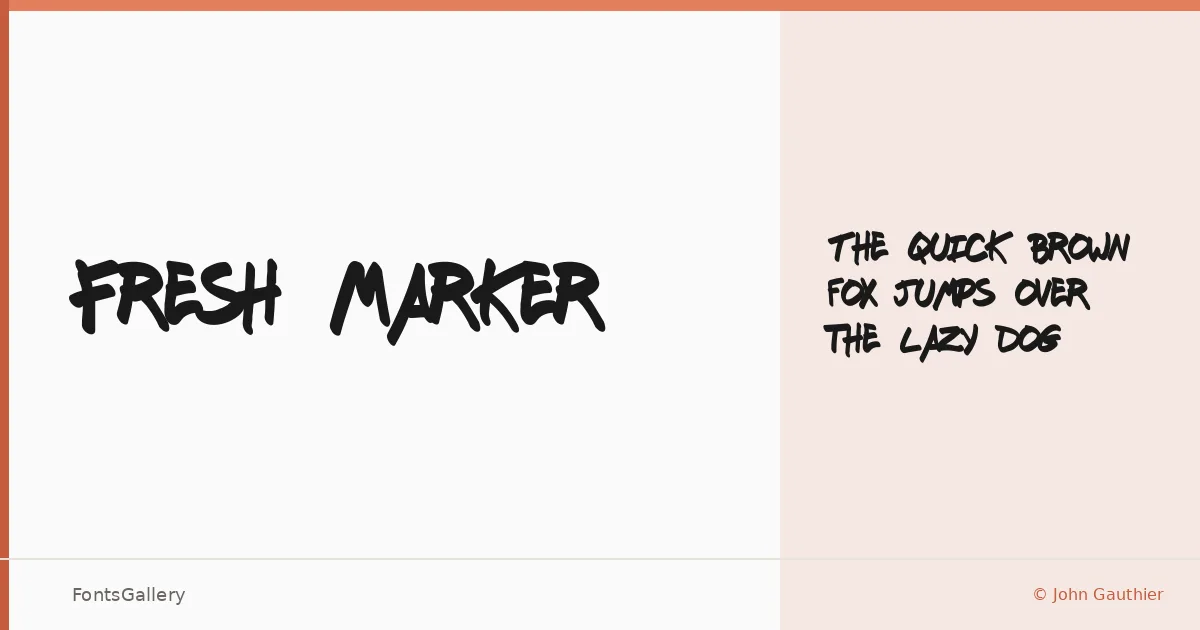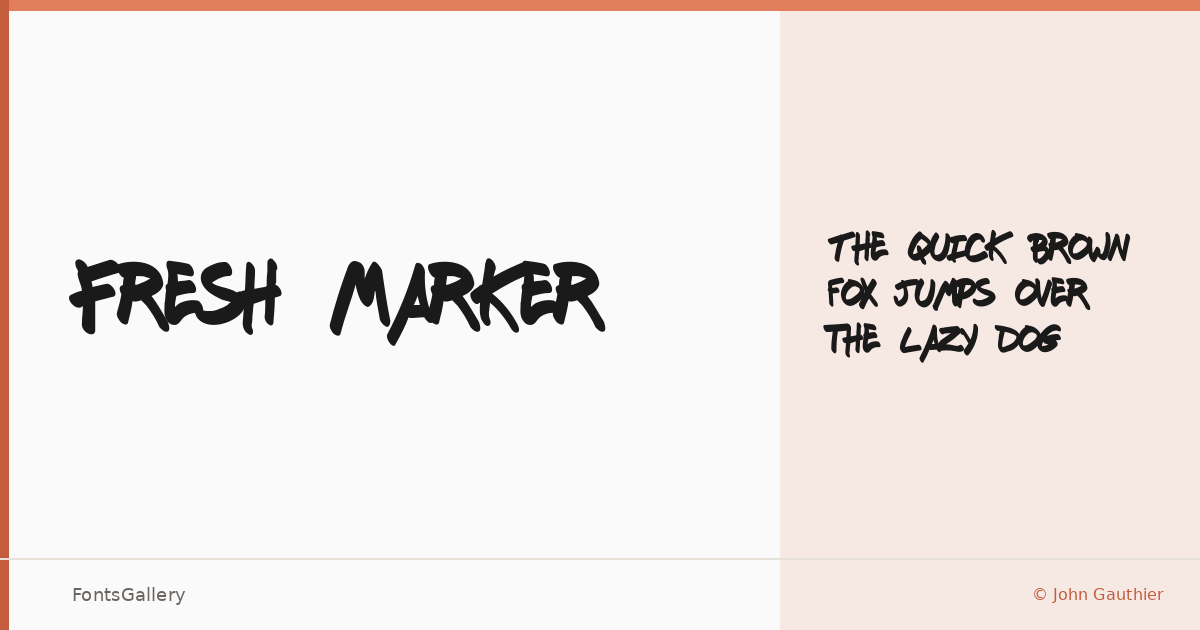
About Fresh Marker Font
There is something immediately physical about this face — the kind of thick, slightly ragged stroke you get when a broad-tipped marker meets rough paper and moves fast. It was designed by John Gauthier, and it carries that handmade energy without apologizing for it.
This is a single-weight handwritten display face — Regular only — built around a bold, grunge-inflected character that sits somewhere between playful and rustic. The strokes have the natural unevenness of real marker work: edges that are not quite clean, letterforms that feel drawn rather than constructed. That roughness is the point. It reads as confident and immediate, not casual or throwaway.
The weight and texture make it well suited to branding work, poster headlines, T-shirt graphics, and the kind of social media imagery that needs to feel handcrafted rather than polished. Logo lockups benefit from its strong, readable silhouette at large sizes. It pairs well with clean, neutral faces like Helvetica or Abrade to balance the raw energy, and works alongside other expressive display types such as AQUA, Aranea, and Aresink when a more layered, graphic look is the goal.